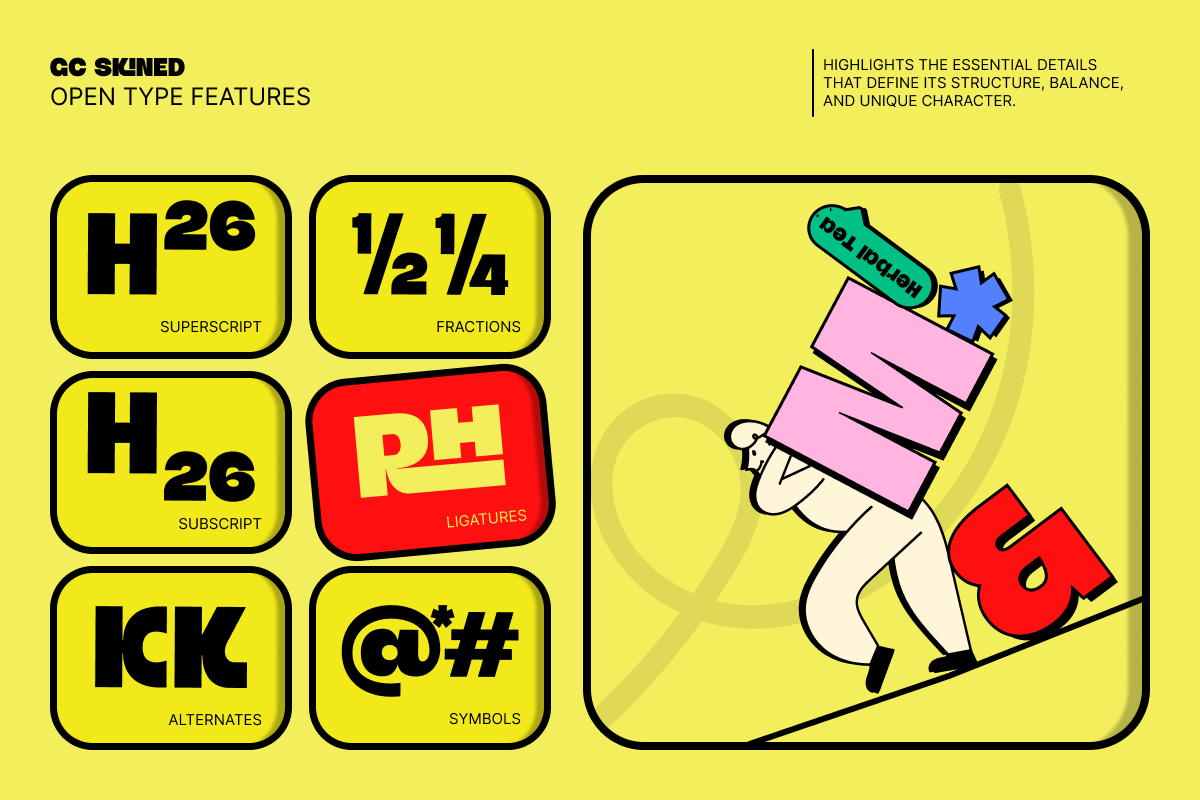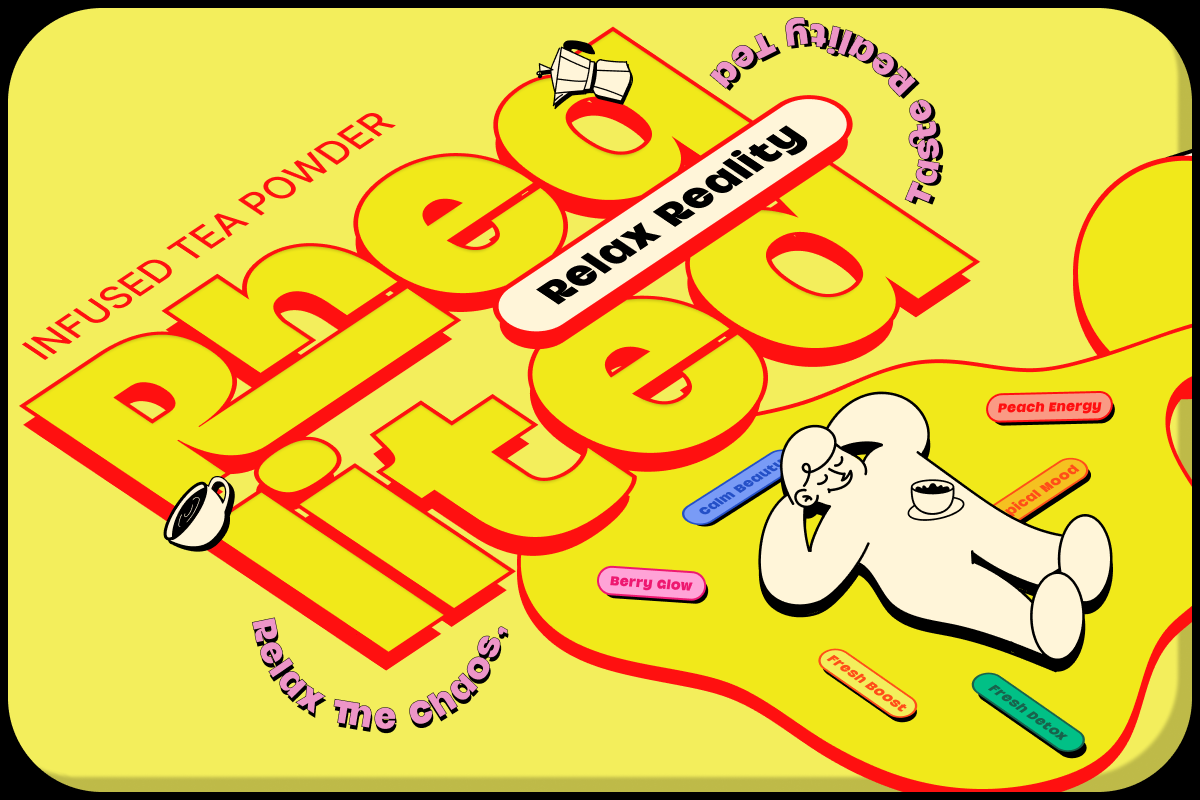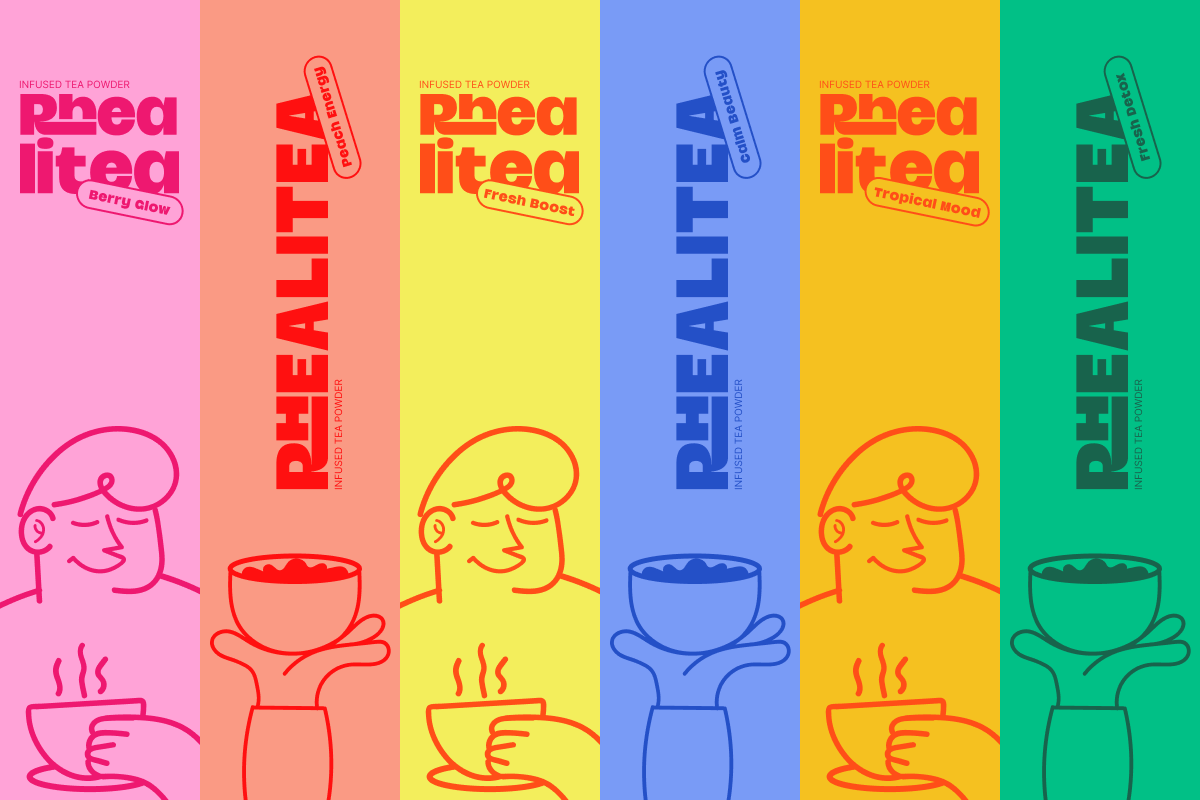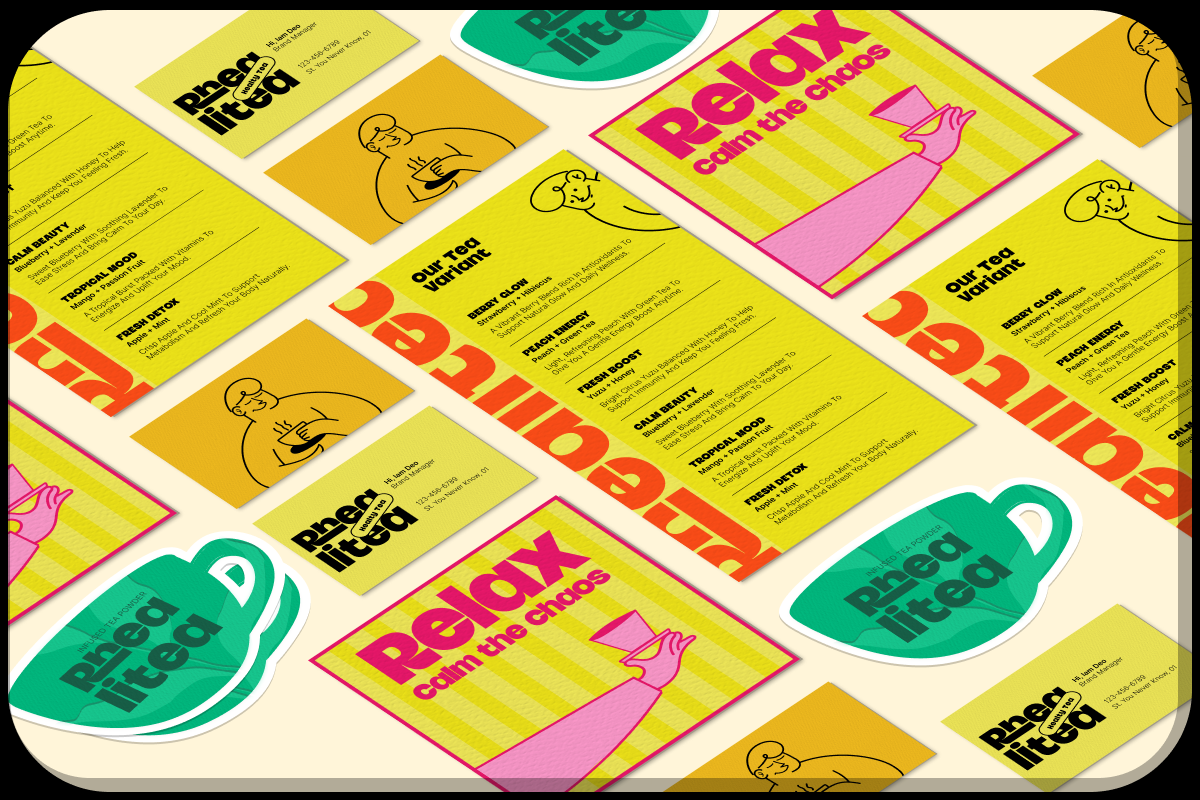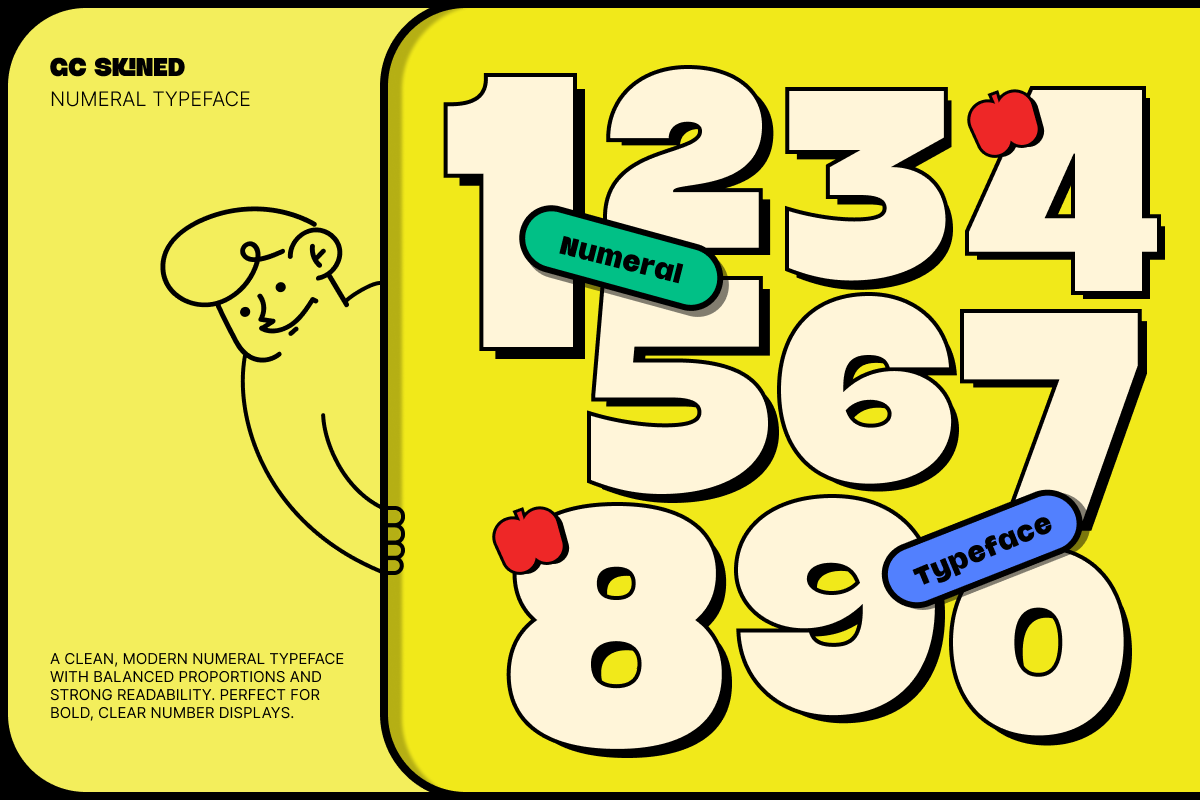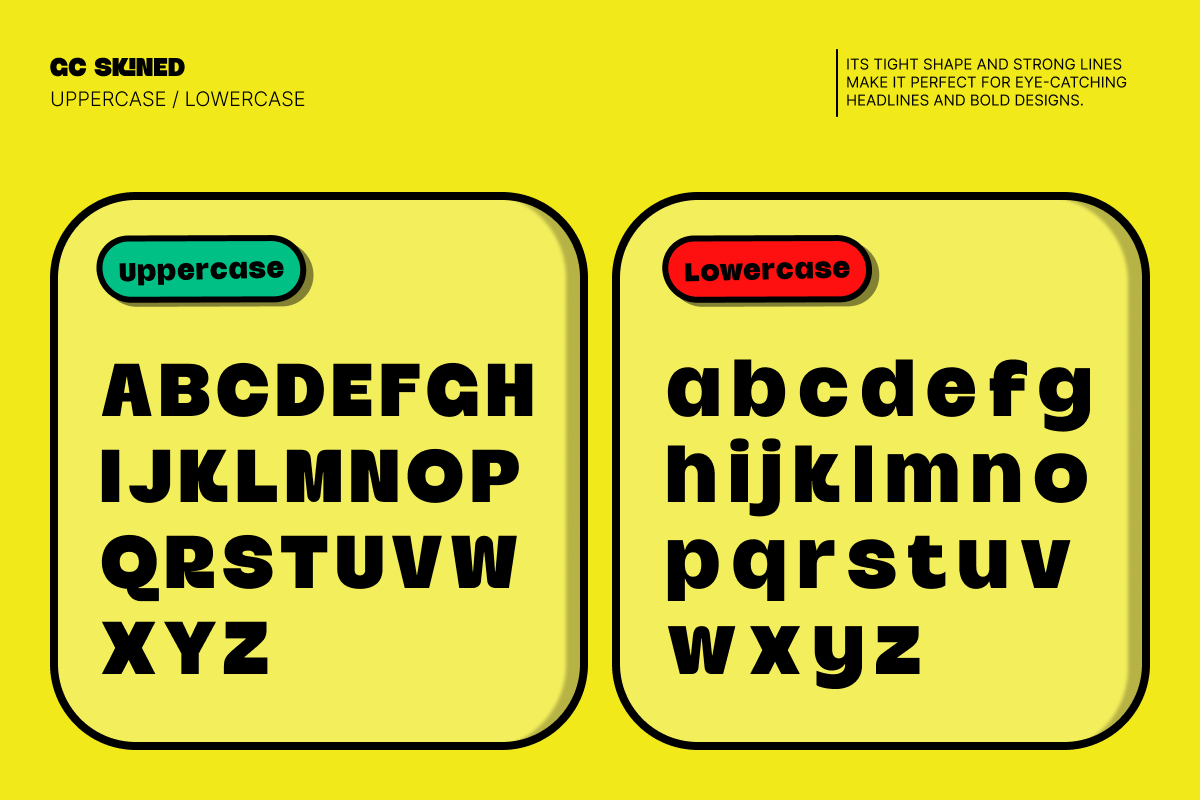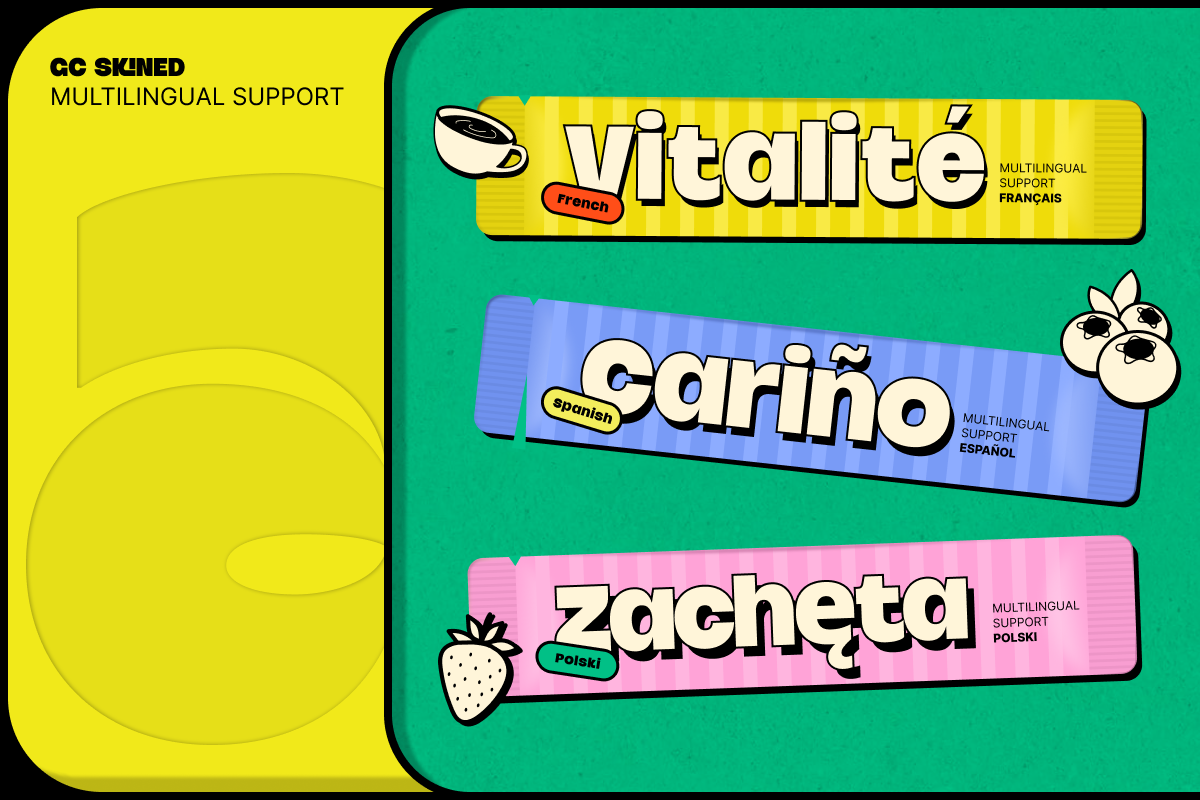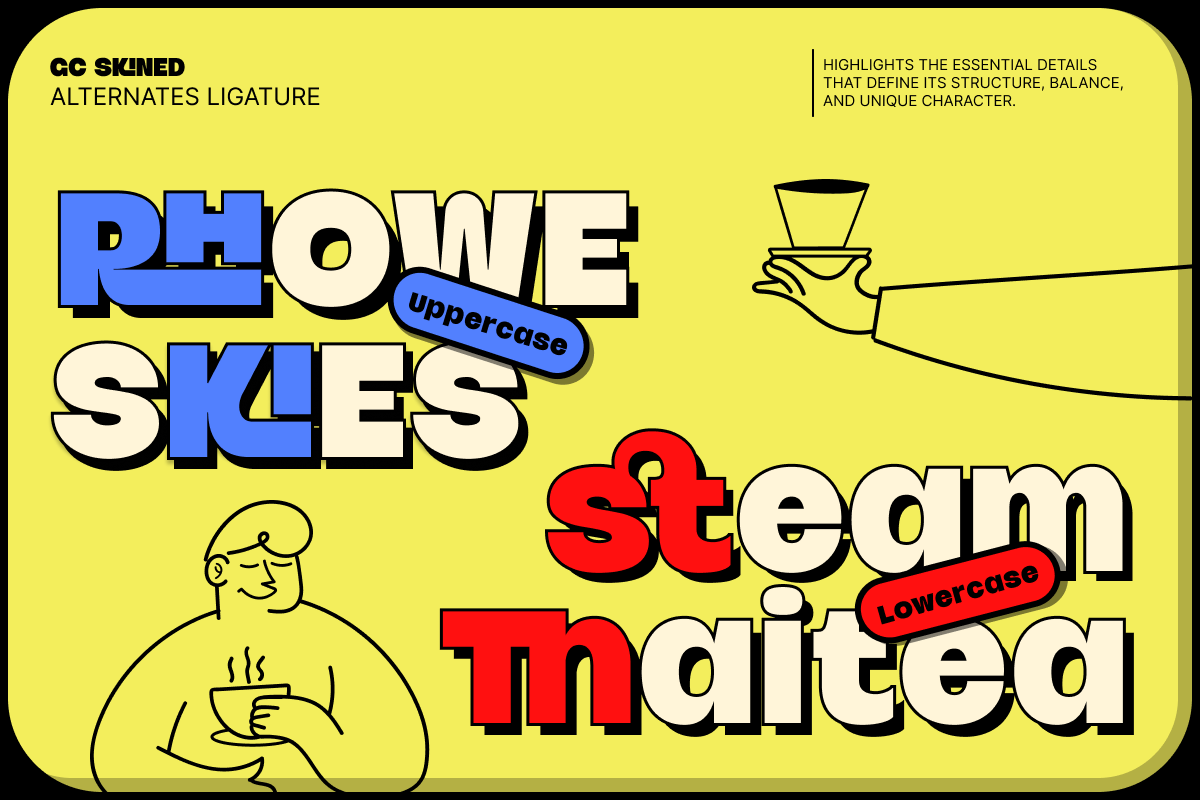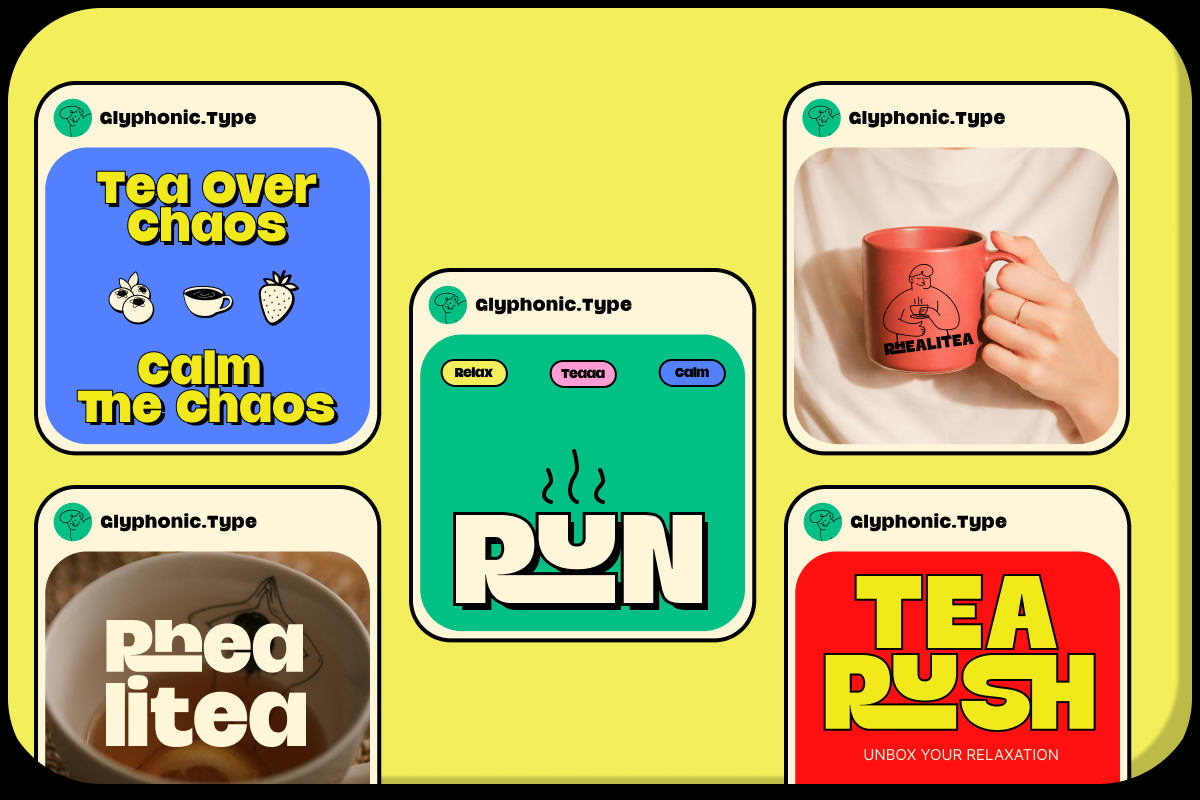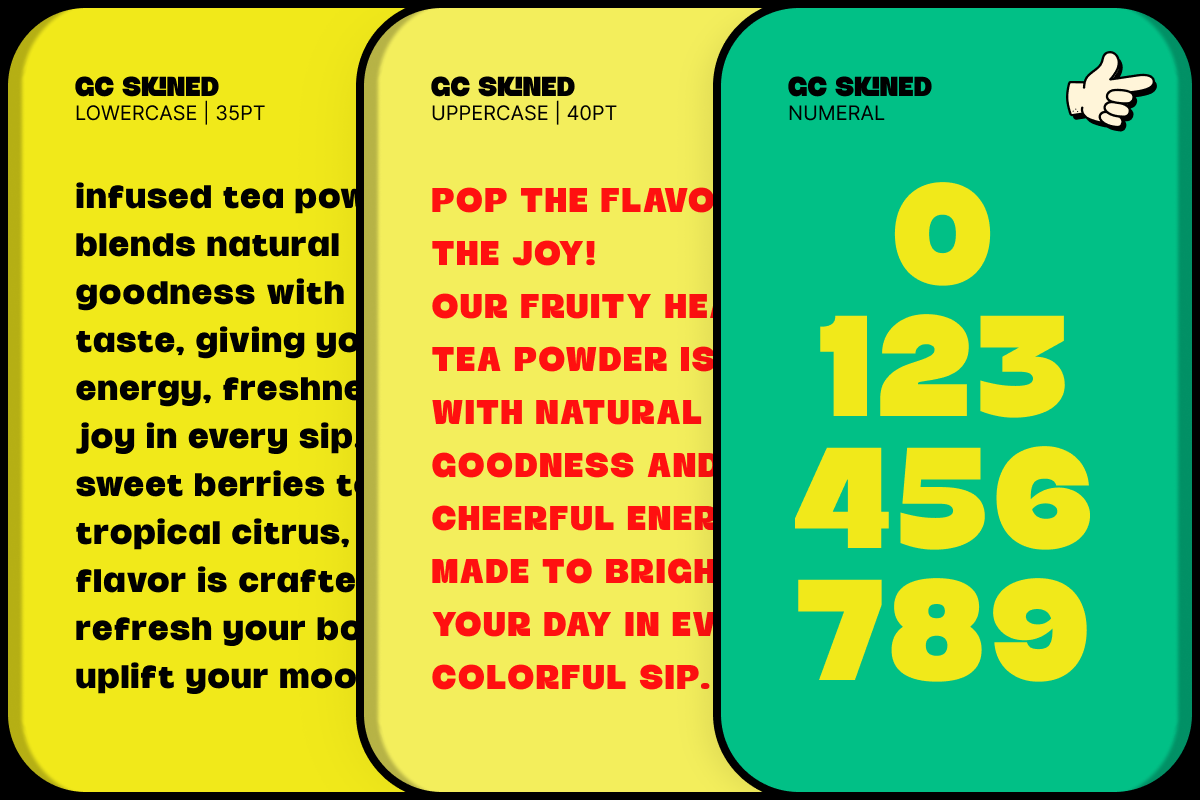
GC Skined – Bold Condensed Display
GC Skined – Bold Condensed Display is a striking display typeface built to deliver maximum impact with minimal space. Designed with a bold condensed structure and strong visual presence, it creates a powerful voice that instantly captures attention.
With its solid strokes, tight spacing, and confident proportions, GC Skined is perfect for headlines, posters, branding, sports visuals, packaging, and high-impact editorial layouts. Its condensed form allows for efficient use of space while maintaining clarity and bold readability.
Crafted to stand out across both digital and print media, GC Skined balances strength and simplicity—making it ideal for projects that demand energy, intensity, and a modern edge.
- Bold Condensed Display Construction
- Multilingual Support (170+ Languages)
Make your designs louder, tighter, and more powerful with GC Skined – Bold Condensed Display.